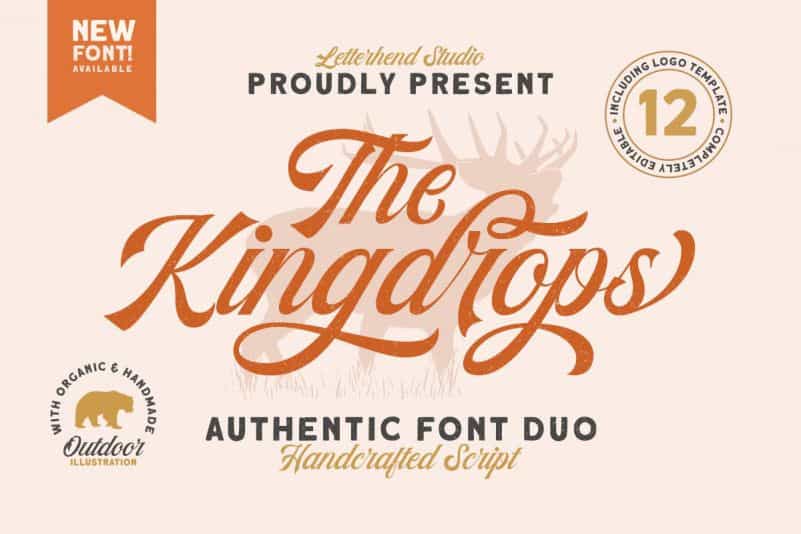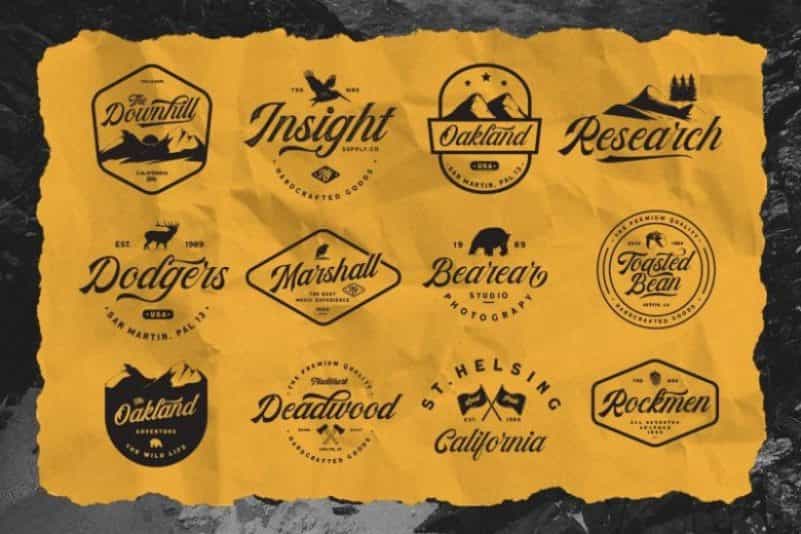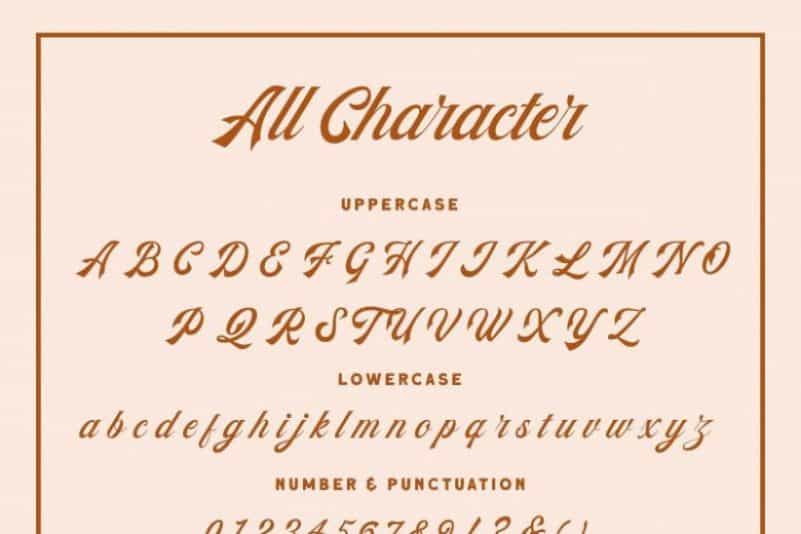
Introducing Kingdrops Font. It is a clean calligraphy script font with a good flow and fusiform contours. The font was made by handwriting, and has a peculiar calligraphy; the writing is very natural and looks modern.